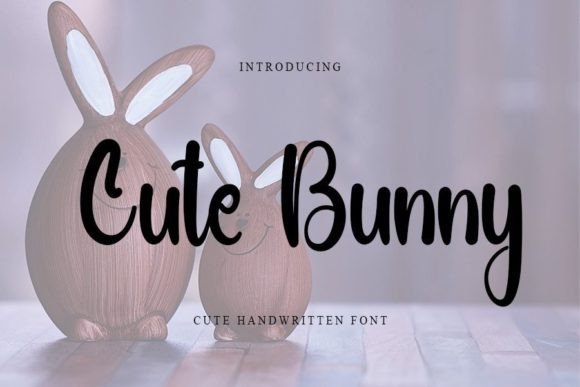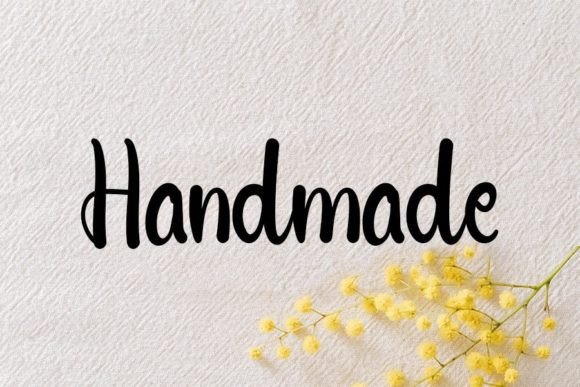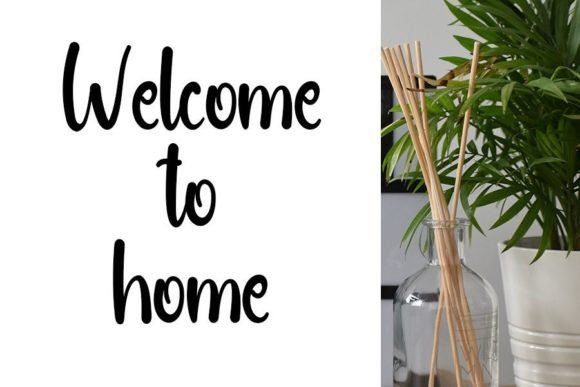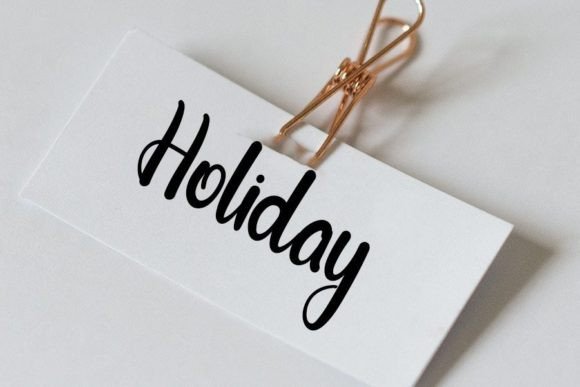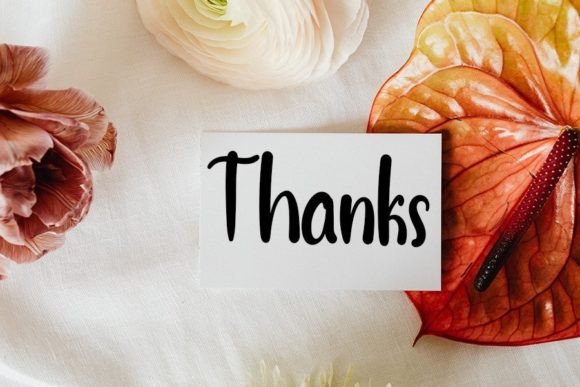
Cute Bunny Font
About Cute Bunny Font
“Cute Bunny” is more than just a font; it’s a neat and beautiful handwritten typeface described by an elegant touch, perfect for bringing charm to your favorite projects. With its distinct and timeless style, “Cute Bunny” becomes a valuable asset, allowing you to create spectacular designs that capture attention and convey a sense of sweetness.
The neat and beautiful qualities of “Cute Bunny” make it an ideal choice for a variety of projects. Whether you’re working on invitations, stationery, social media posts, or any other creative endeavor, this font adds a touch of elegance and uniqueness.
The handwritten nature of “Cute Bunny” contributes to its distinct and timeless style. It brings a sense of authenticity and warmth to your text, making it more engaging and relatable to your audience.
Imagine “Cute Bunny” gracing your designs, creating a visual experience that is both neat and delightful. Its elegant touch elevates the overall aesthetics of your projects, making them stand out with a touch of sweetness.
For any design that requires a playful and charming vibe, “Cute Bunny” is the perfect choice. Its timeless style ensures that it remains a relevant and appealing font for a wide range of creative applications.
In essence, “Cute Bunny” is more than just a font; it’s a design companion that adds neatness, beauty, and an elegant touch to your projects. Let “Cute Bunny” be the typeface that brings a sense of sweetness and timelessness to your spectacular designs.